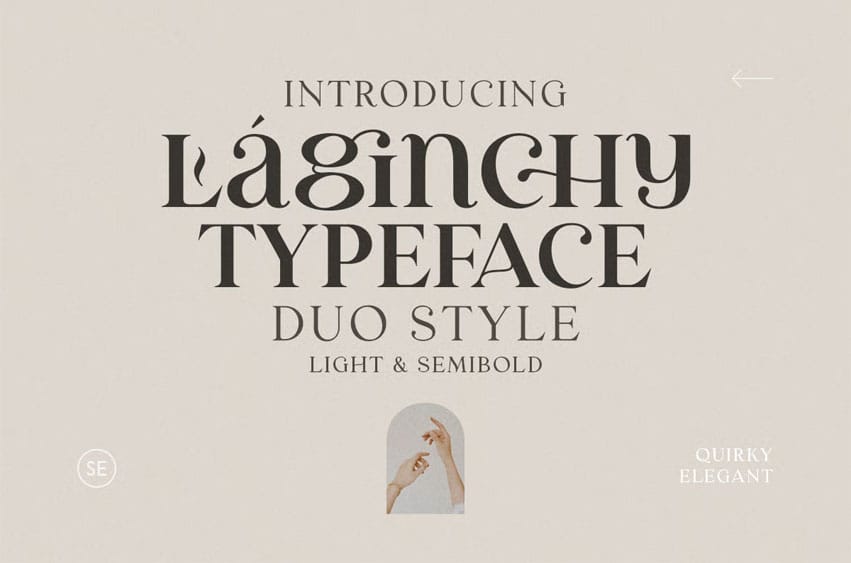
Laginchy Font is a quirky and modern serif that comes in Light & SemiBold version. With unique lowercase, this fonts will make your presentation, poster, or logo even more stunning and stand out! Also comes with stylish ligatures!
- Uppercase with unique lowercase
- Number & Symbol
- Stylish ligatures